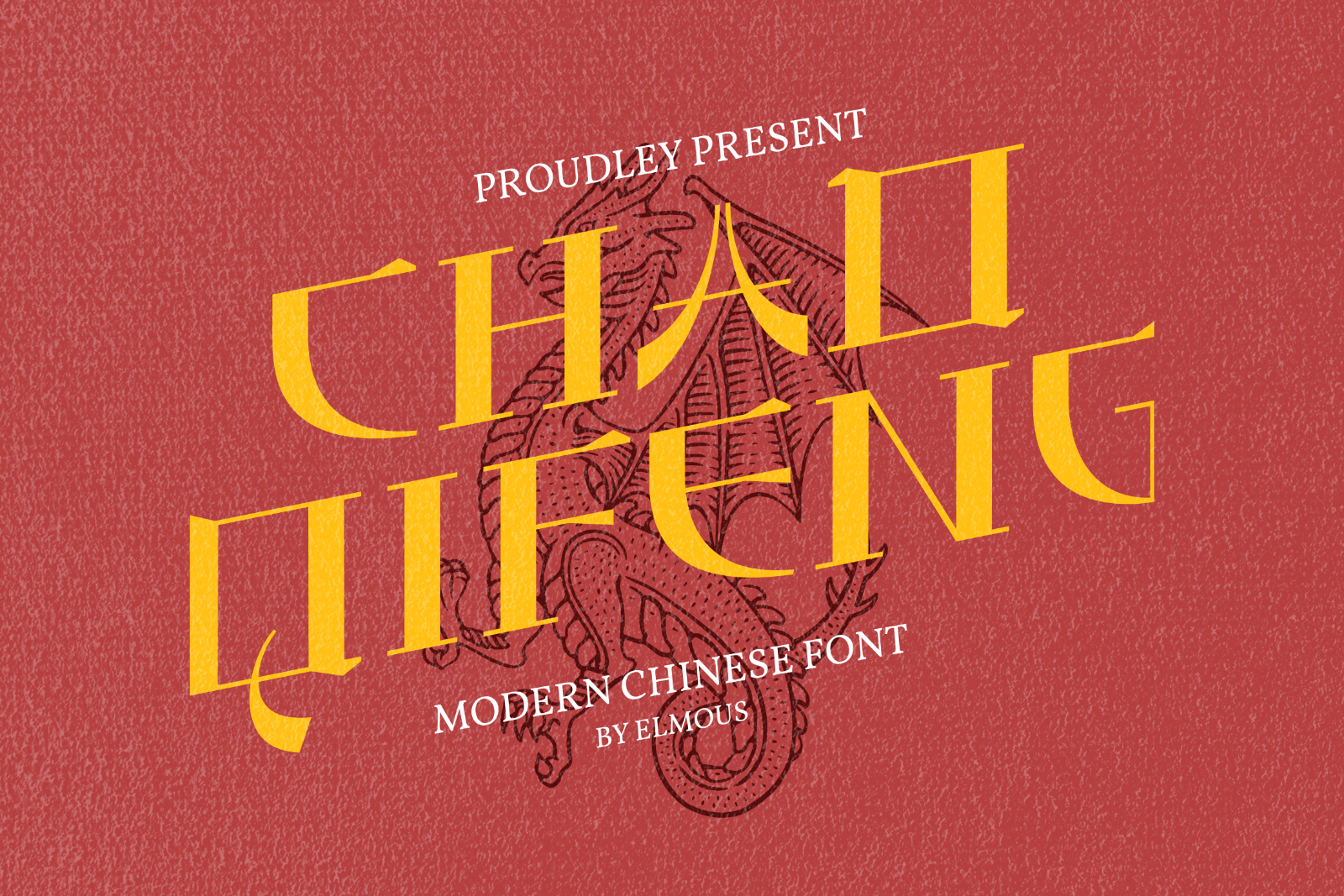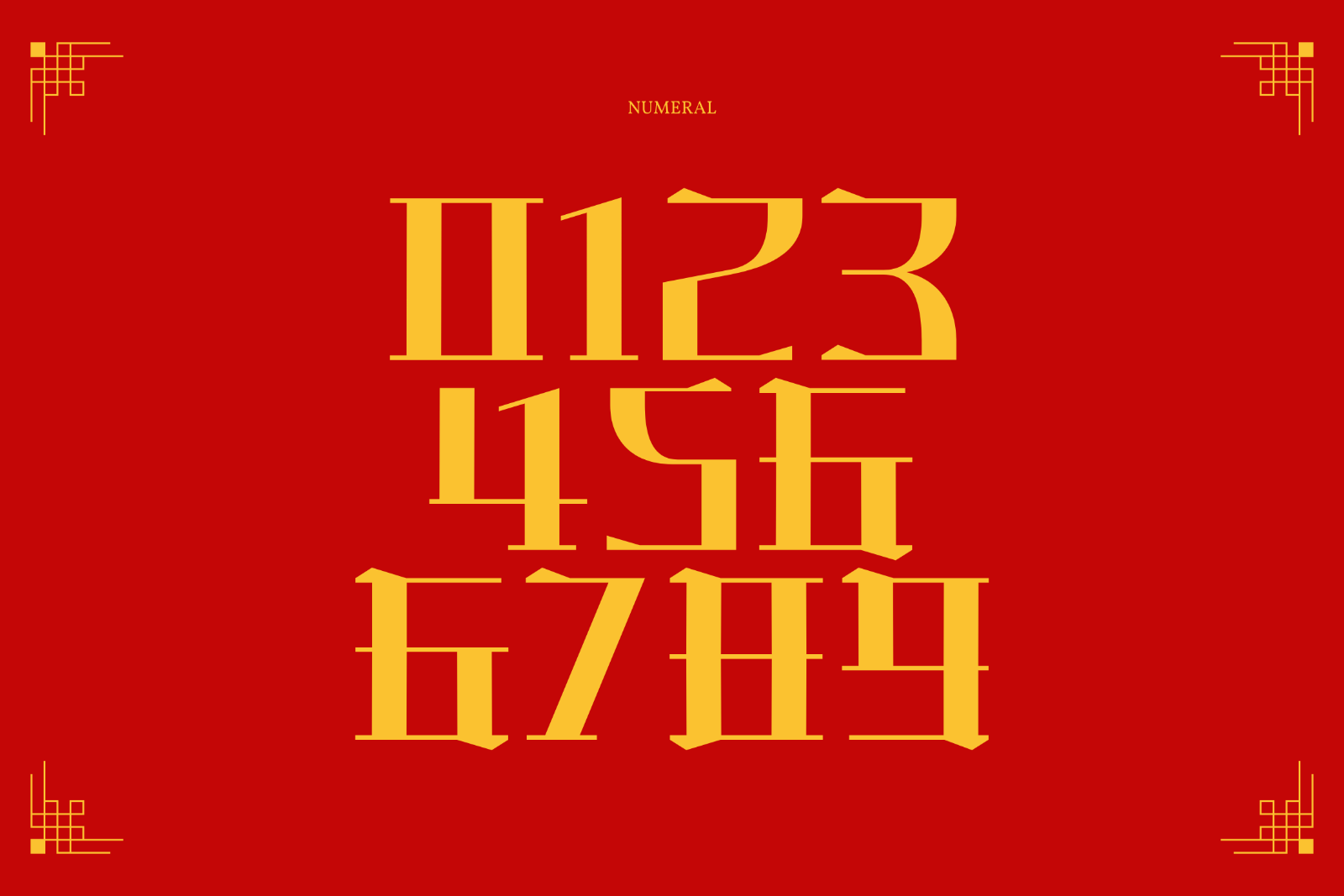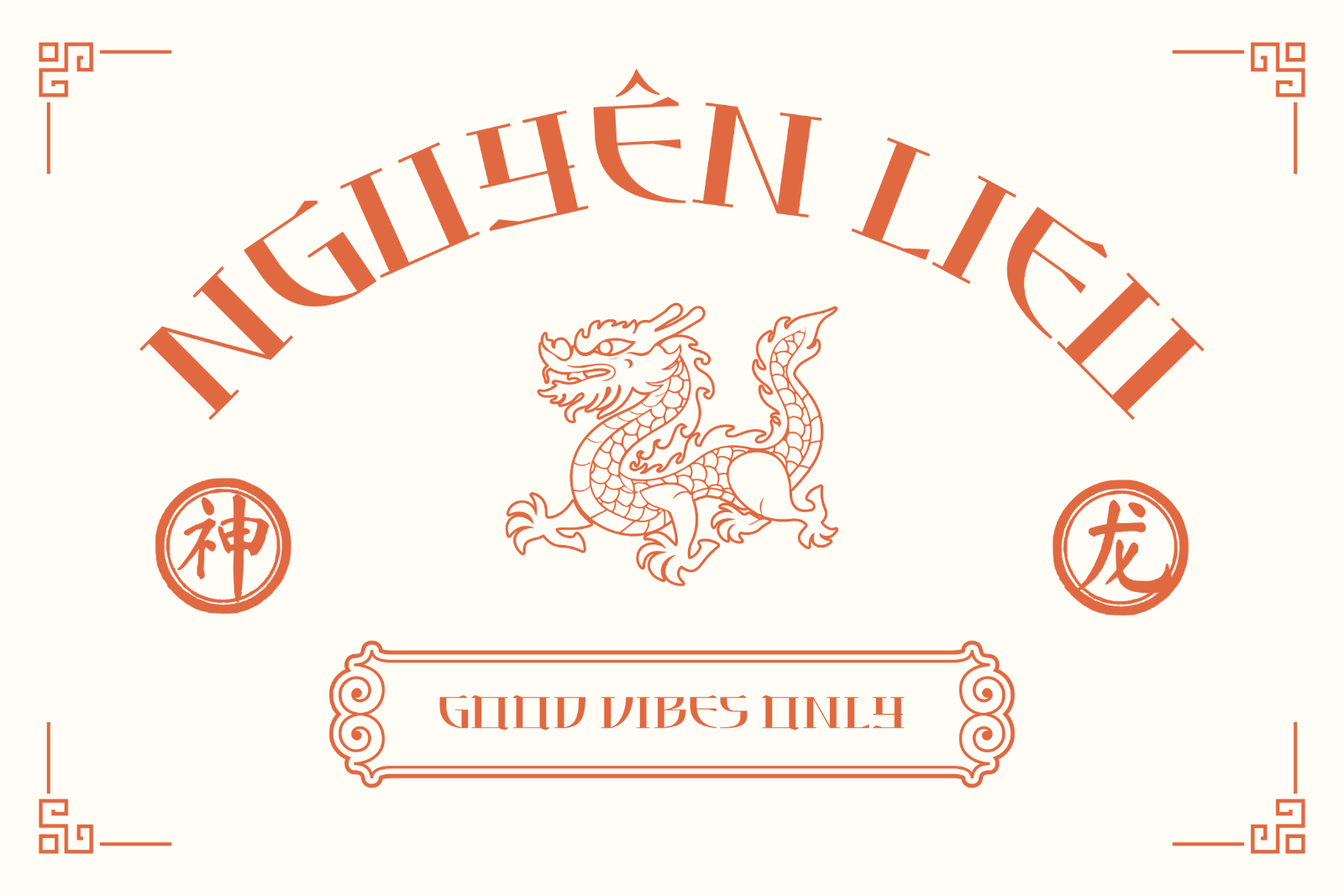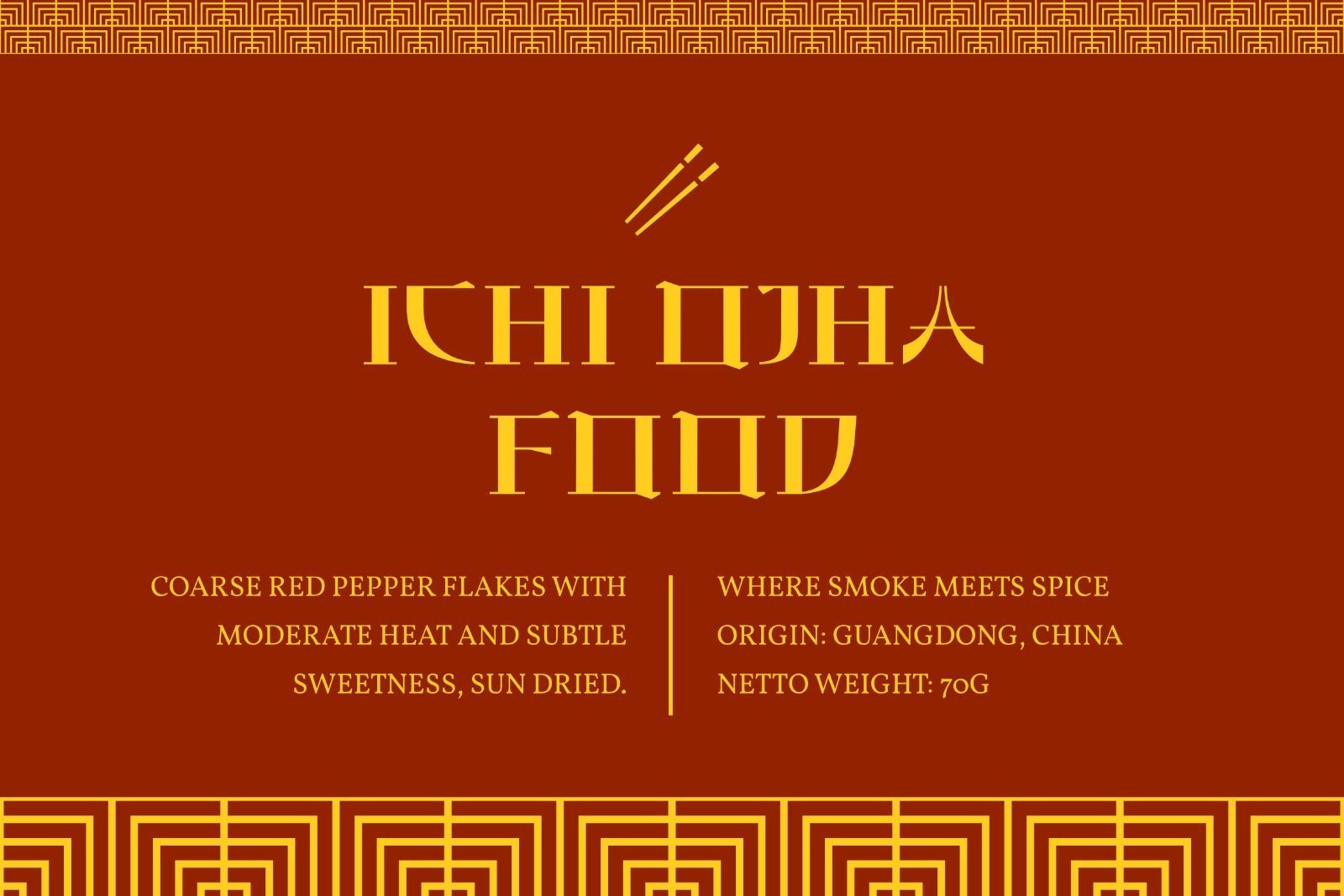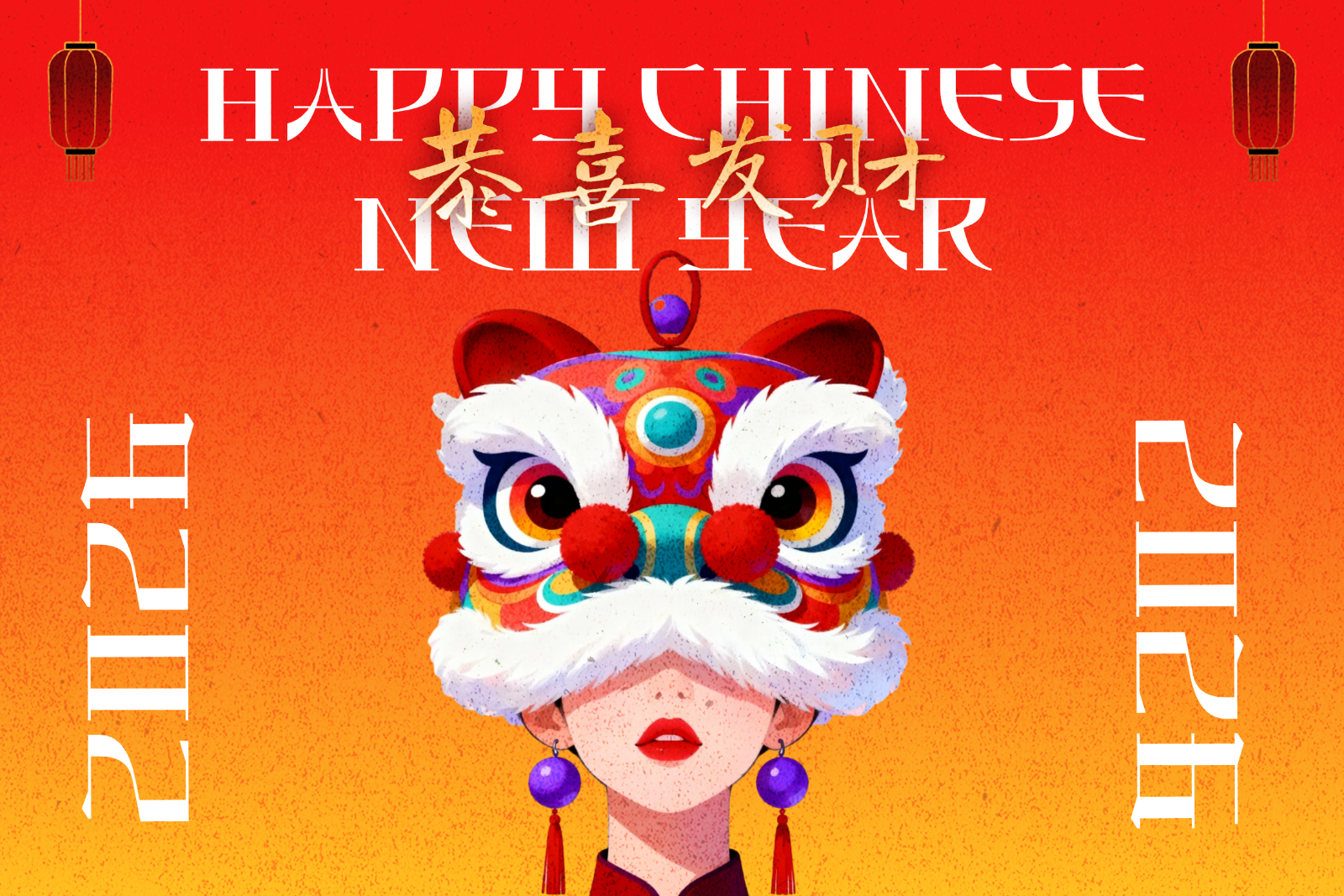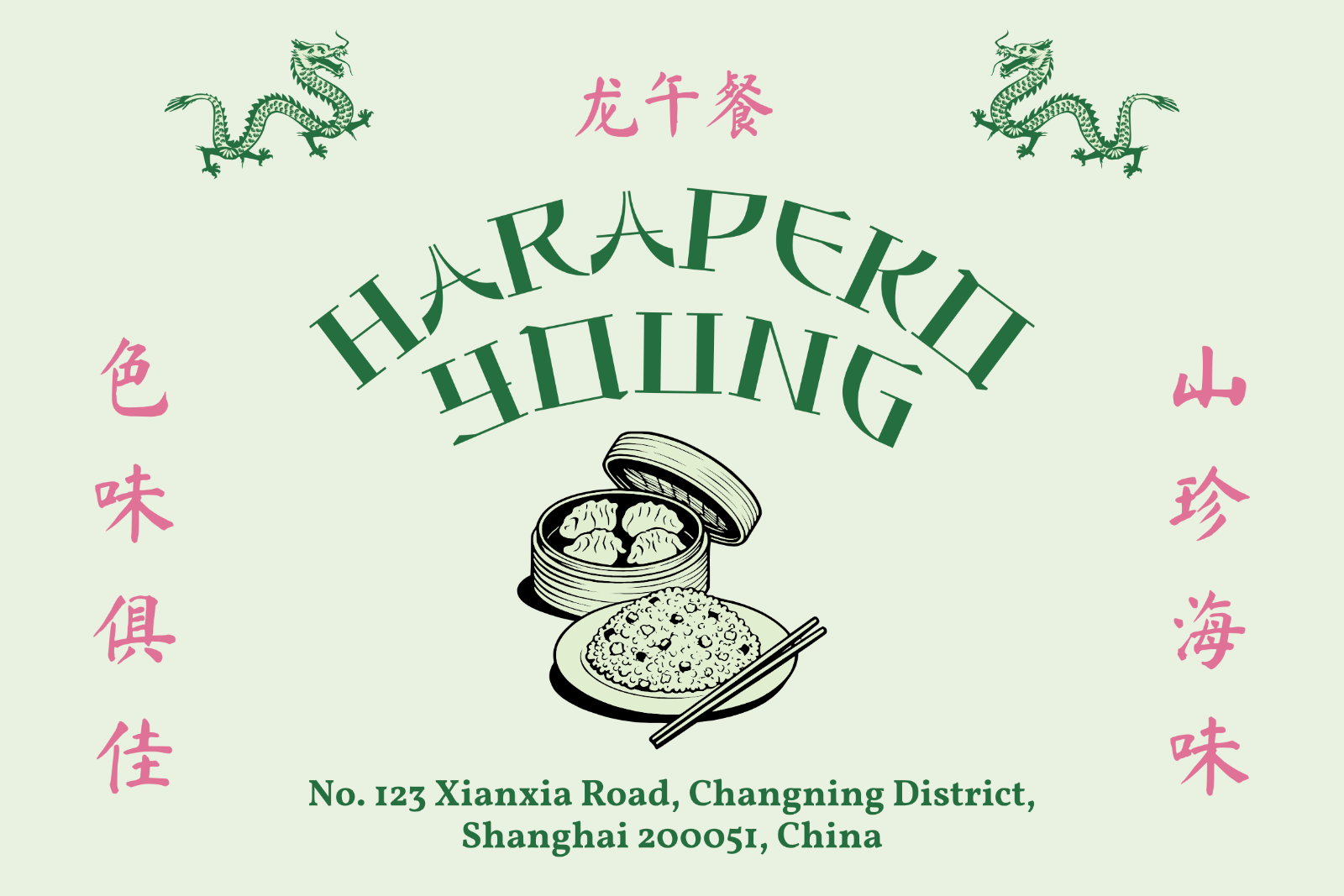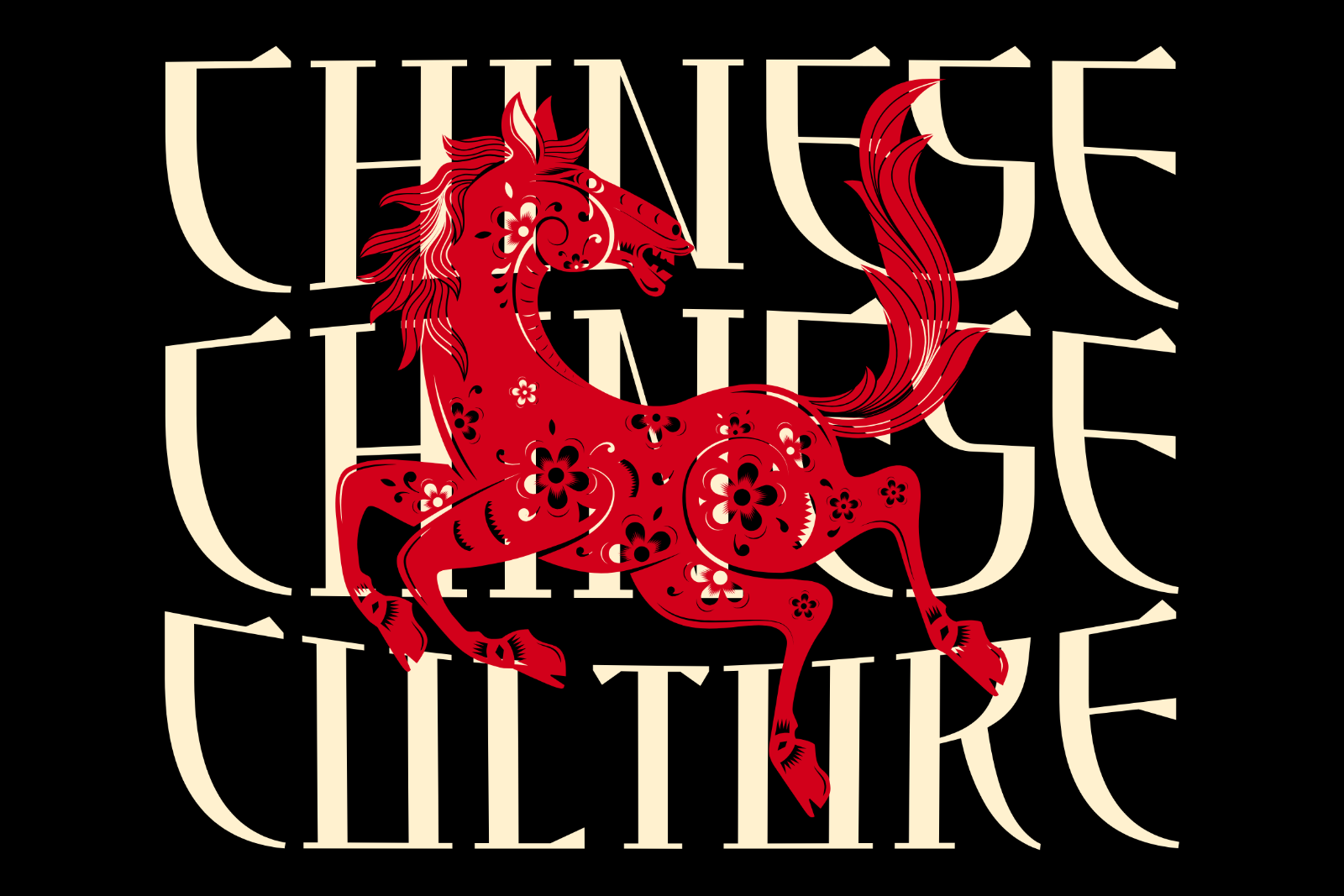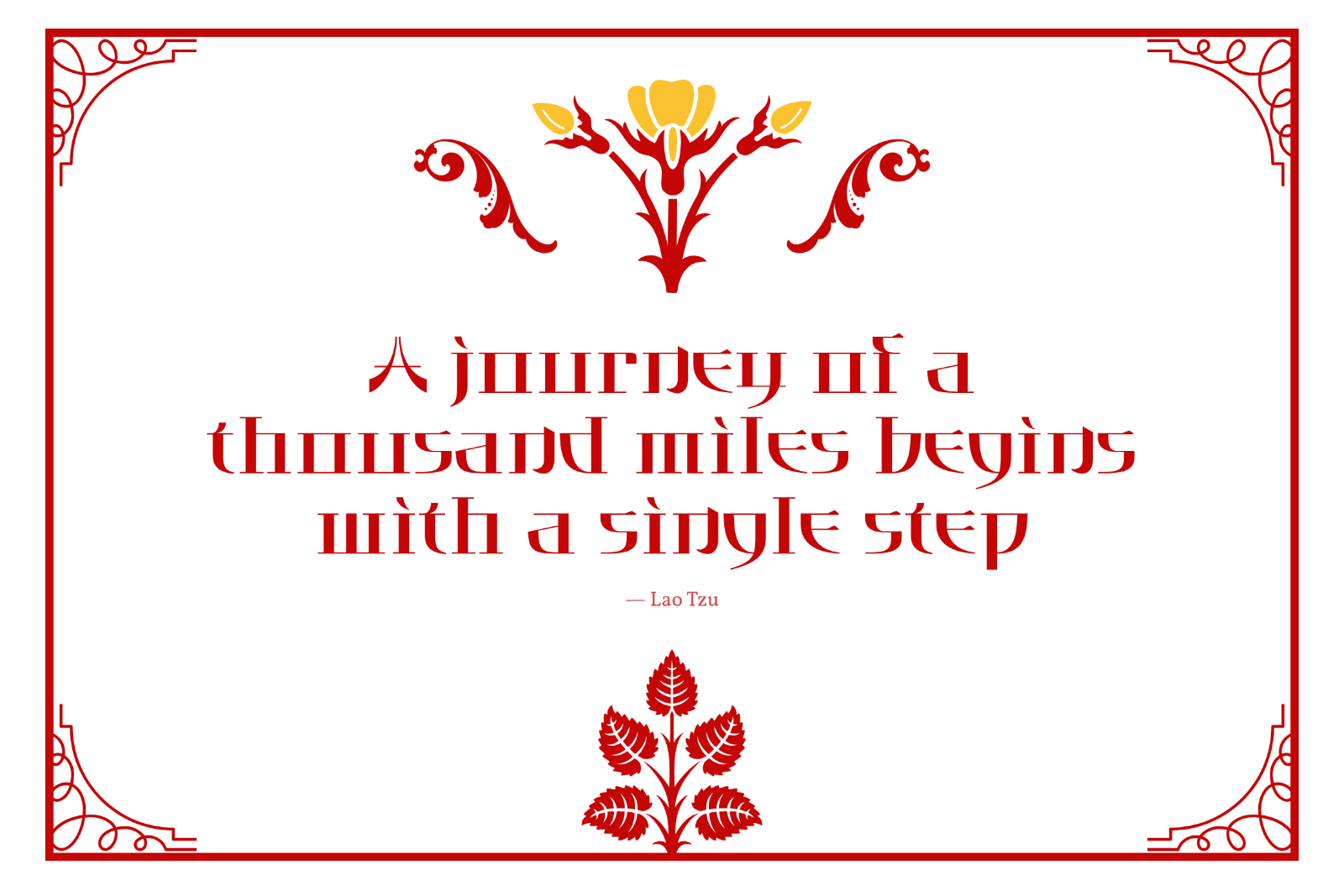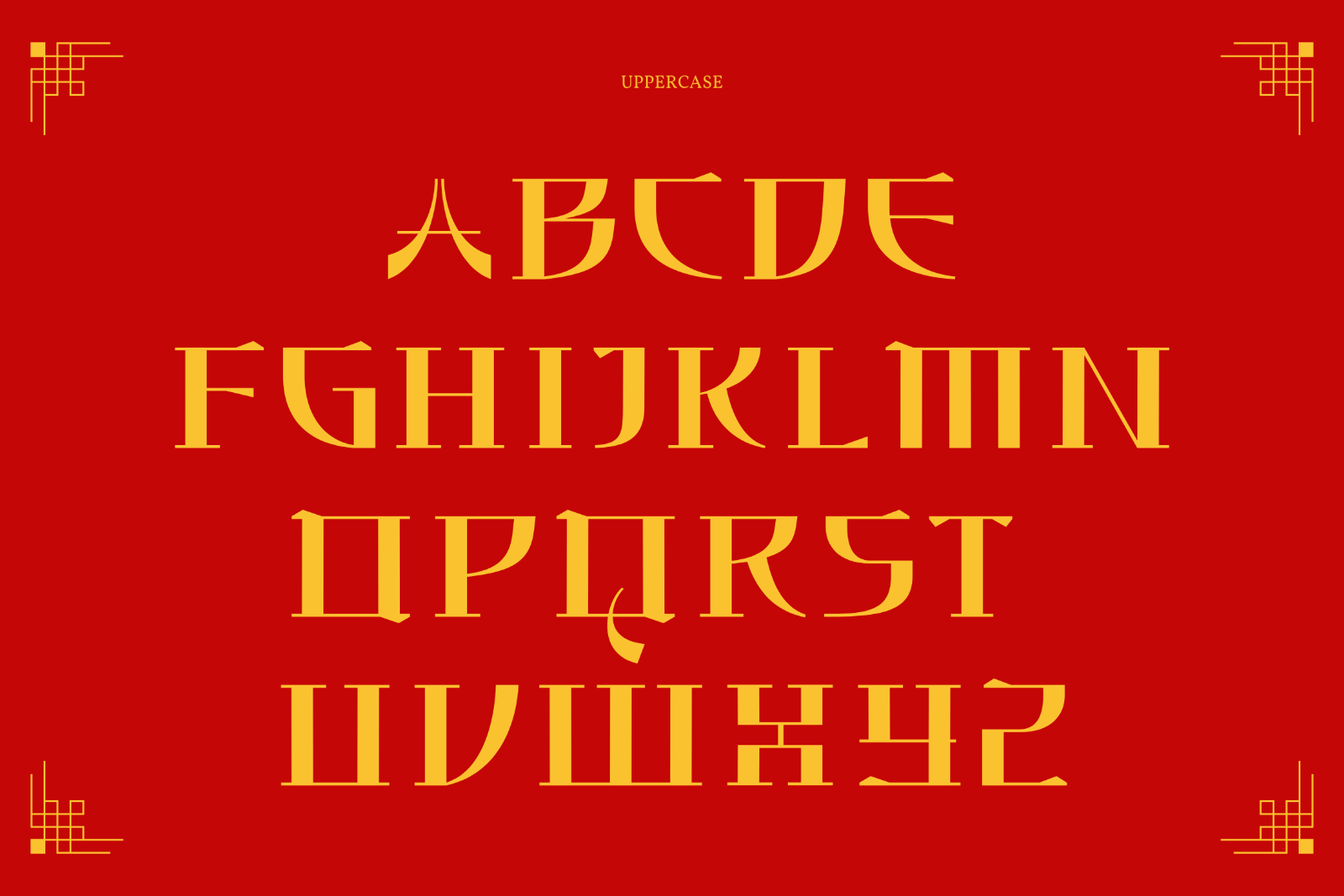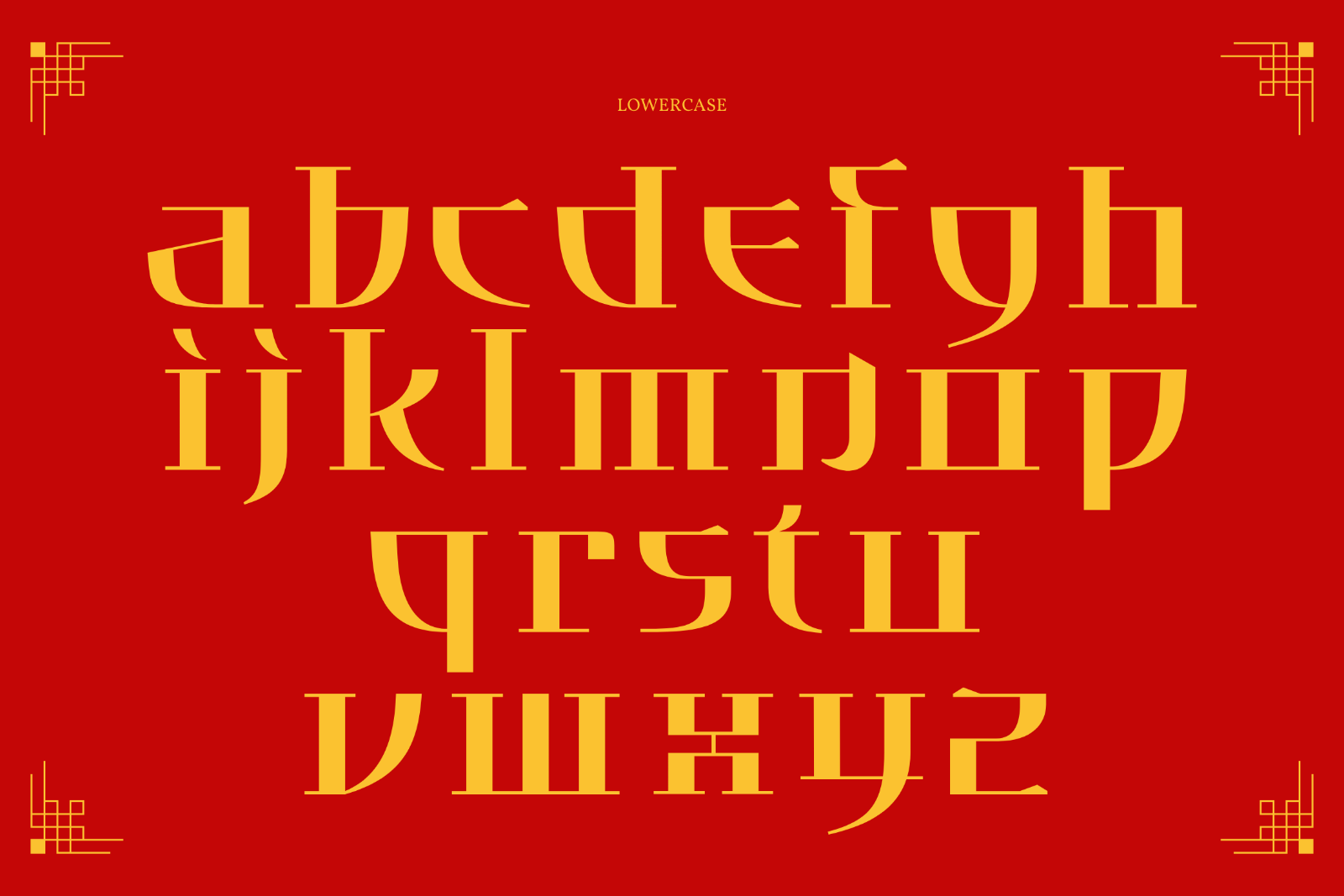
Chao Qifeng is a bold, modern display typeface inspired by traditional East Asian calligraphy and architectural aesthetics. Designed with striking angles and cultural flair, this typeface blends oriental character motifs with modern Latin letterforms.
This font ideal for:
• Lunar New Year and festive cultural event branding
• Asian restaurant packaging, food labels, and menus
• Martial arts, heritage, and traditional product logos
• Poster headlines and book covers